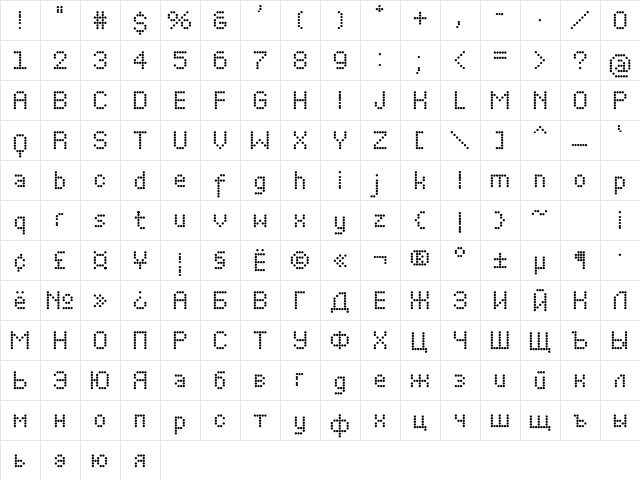
Perfo Bold
Design Context for Perfo Typeface
Perfo is a composed and adaptable typeface that performs quietly and consistently across a wide range of design contexts. Its bold stroke weight gives it real presence on the page.